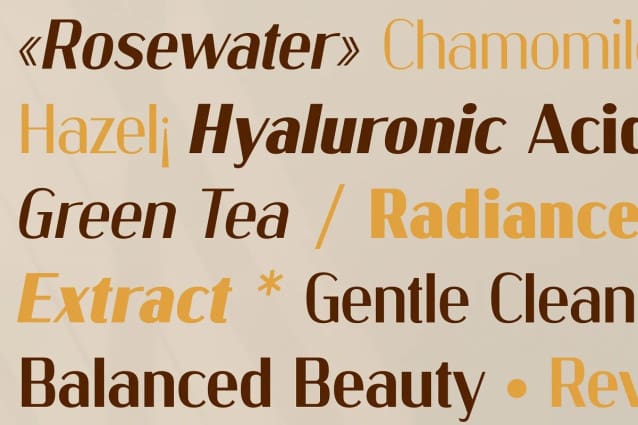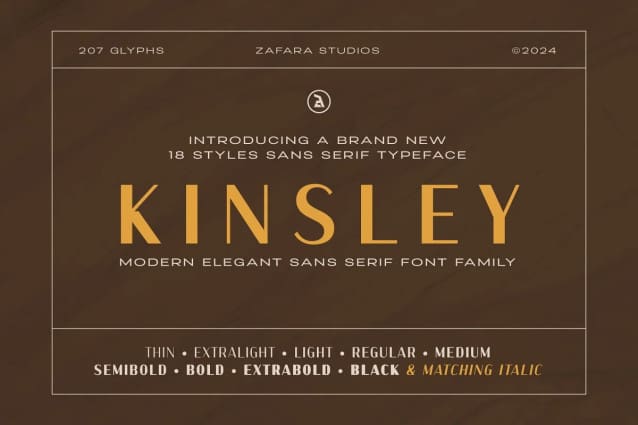
Kinsley Sans Font
Kinsley Sans Font is designed with clean lines and a sleek design that exudes confidence, ideal for branding high-end products or services seeking a timeless and sophisticated aesthetic. Kinsley font can be used in various applications such as logos, branding, packaging, editorial, advertising, and more.